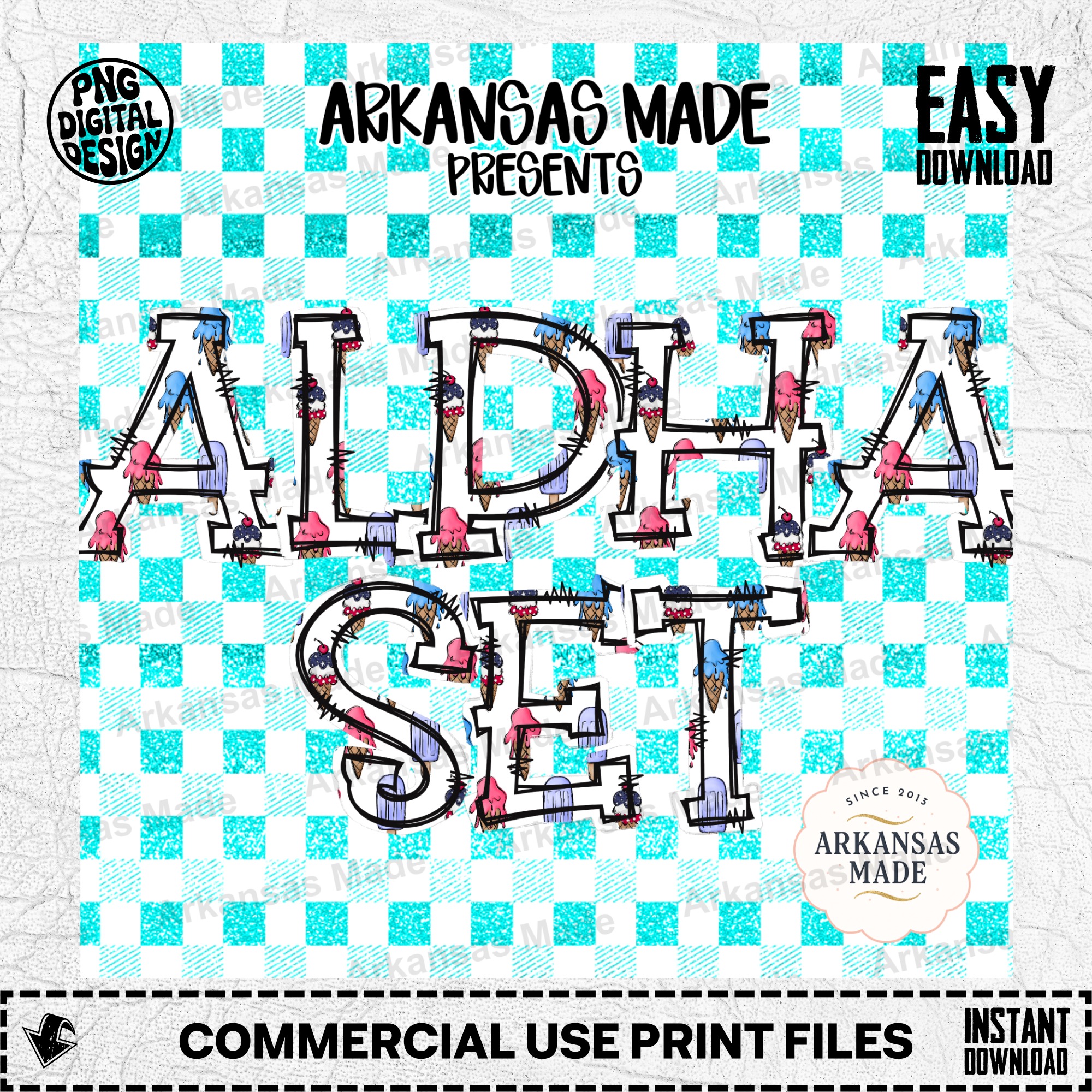
Dive into summer fun with this vibrant Ice Cream Alphabet Digital Download Alpha Set PNG, featuring sweet treat letters perfect for any project. This playful collection captures the joy of warm weather with dripping ice cream cones and popsicles in a delightful mix of colors, including a patriotic option. Ideal for crafters, DIY enthusiasts, and small business owners creating personalized apparel, party decor, or unique digital designs. Add a whimsical touch to summer birthday gifts, 4th of July celebrations, or everyday creative projects.